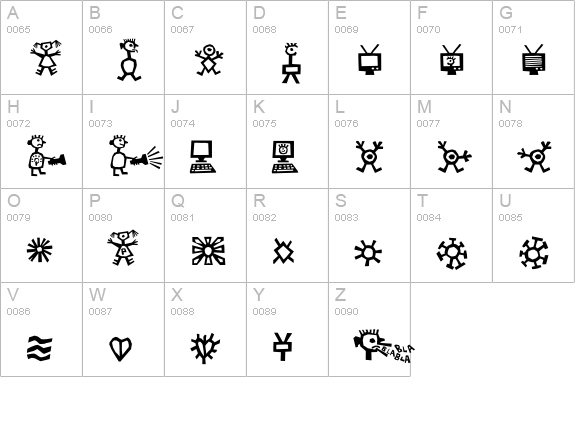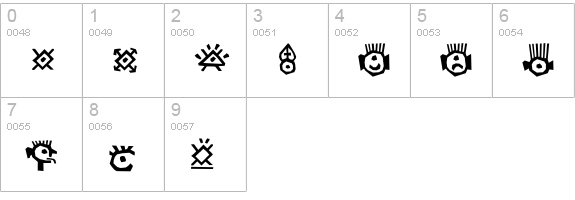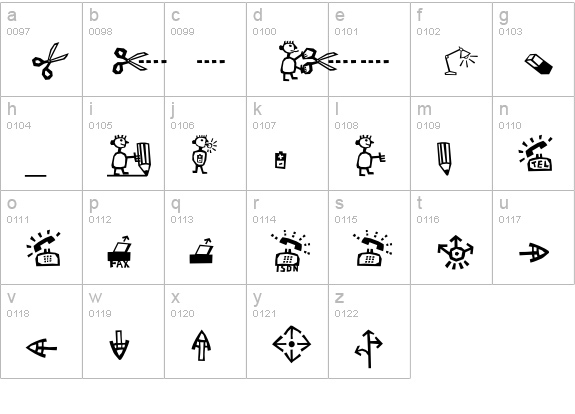
Forchetta-Figure Font Details
Forchetta-Figure font is a unique and elegant typeface that brings a touch of sophistication to any design project. Its sleek lines and intricate details make it perfect for adding a touch of class to invitations, logos, and other branding materials. The Forchetta-Figure font is free to download at FontsMarket.com, making it accessible to designers of all levels looking to elevate their work with a stylish and versatile typeface. With its modern yet timeless design, Forchetta-Figure is sure to make a statement and leave a lasting impression on any project.